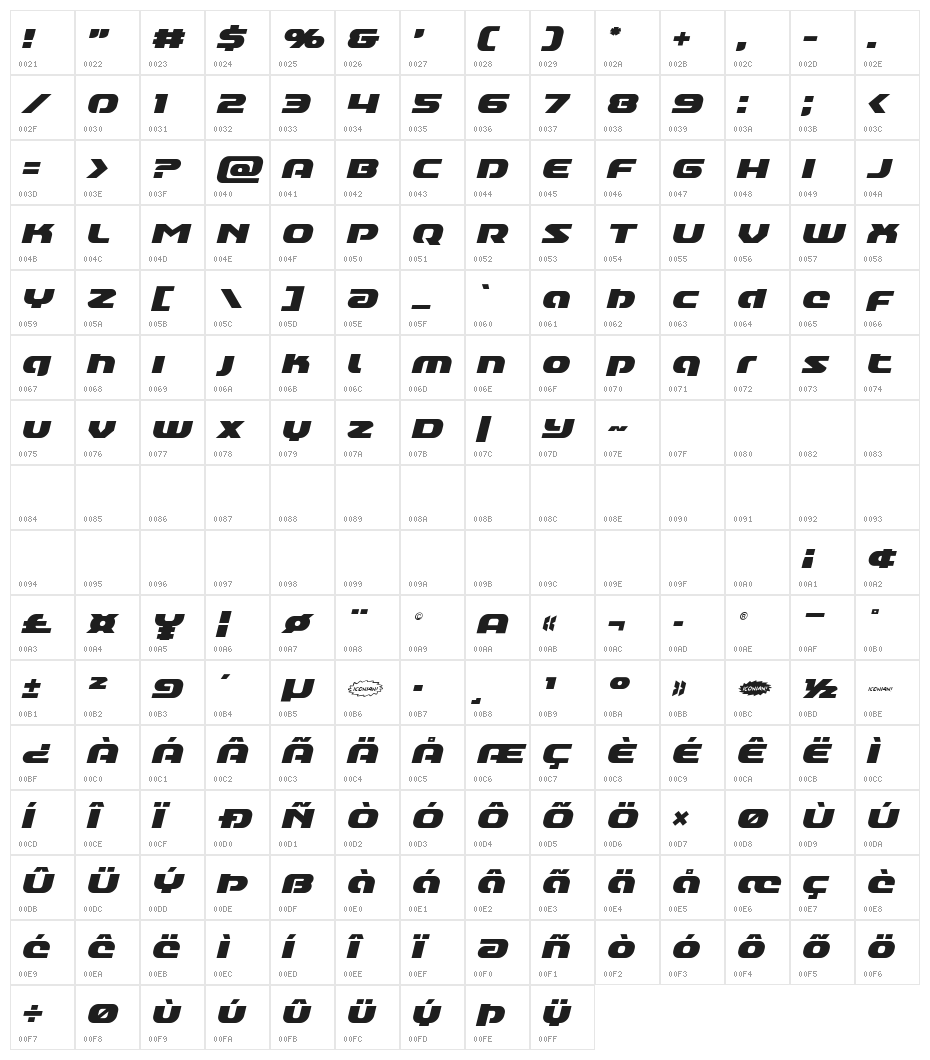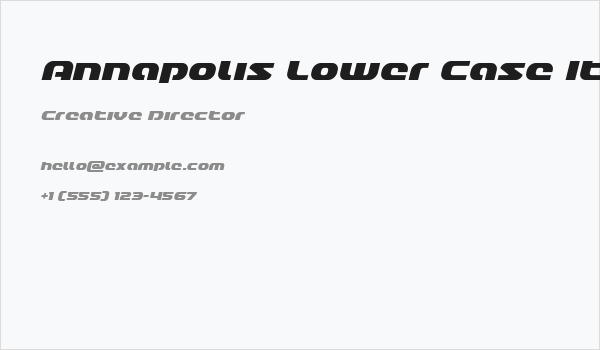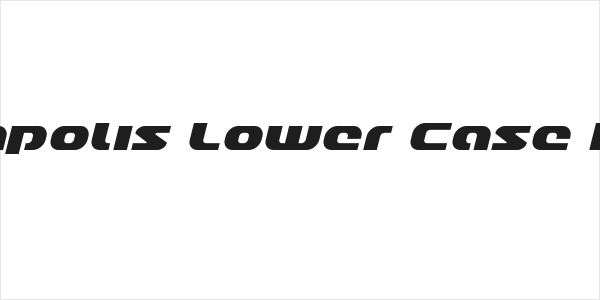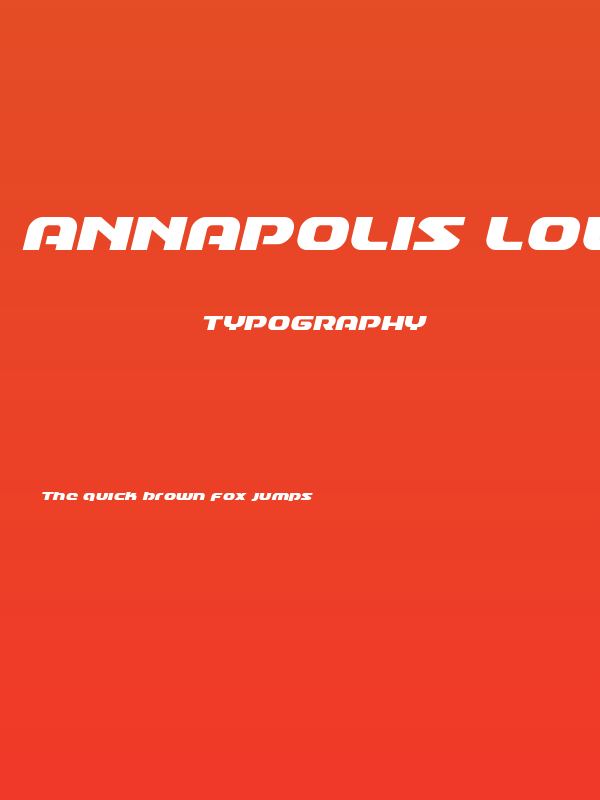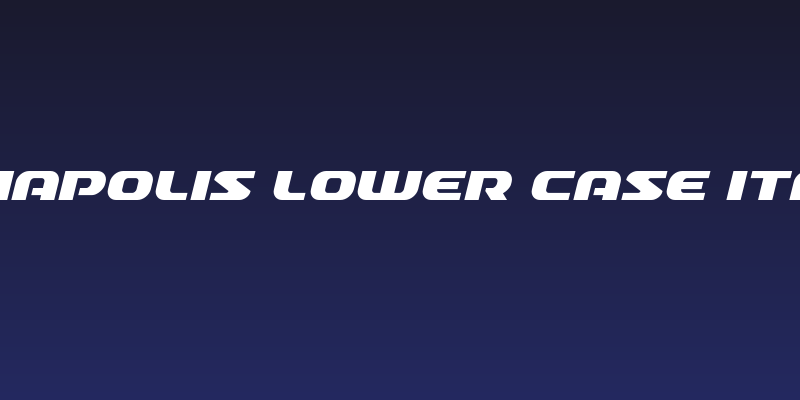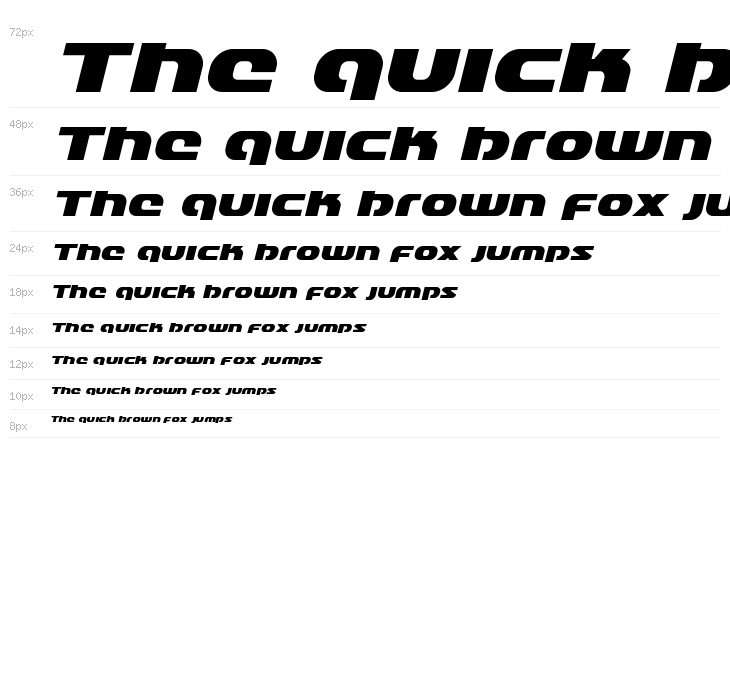
Annapolis Lower Case Italic Font
Annapolis Lower Case Italic Description
This font features a bold and dynamic style with a strong italic slant, giving it a sense of motion and energy. The characters are wide and have a slightly condensed appearance, with a modern and futuristic aesthetic. The strokes are thick and consistent, providing a high contrast that enhances readability. The overall design is sleek and stylish, making it suitable for impactful and attention-grabbing text. The special characters maintain the same bold and italicized style, ensuring uniformity across all glyphs.
| Proposed Projects | Ideal for sports branding, dynamic posters, modern advertising, and technology-related designs. |